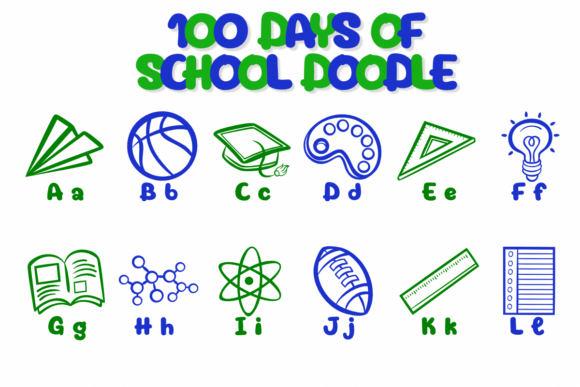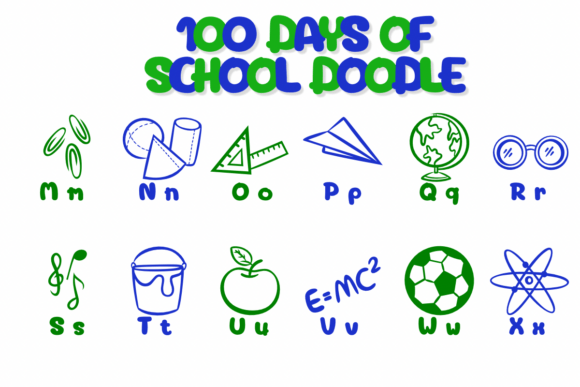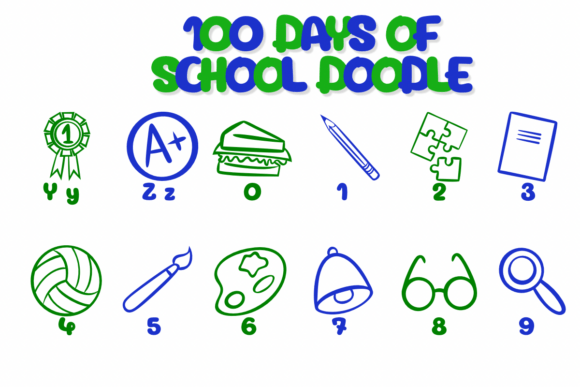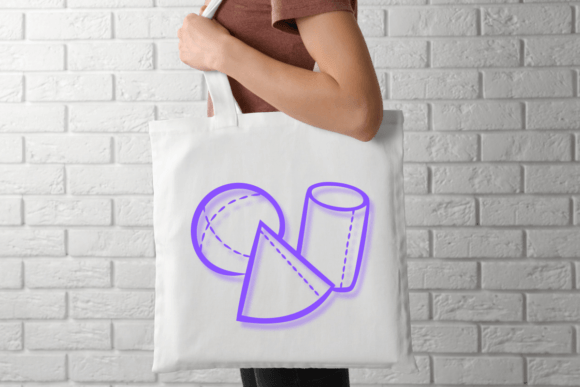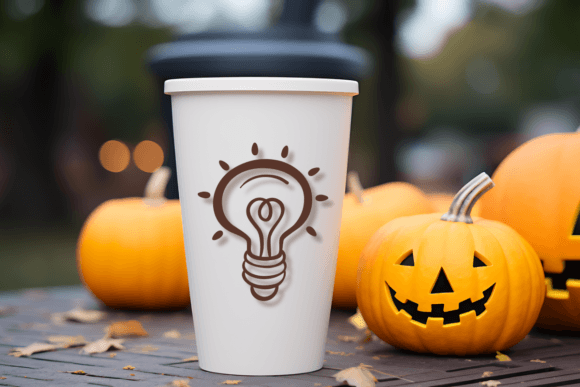
Introducing the 100 Days of School Doodle Font: A Playful and Creative Way to Enhance Your School-Themed Designs
Are you a designer, teacher, or crafter looking for a fun and engaging way to add some personality to your school-themed projects? Look no further than the 100 Days of School Doodle Font! This delightful dingbat font is packed with playful, school-themed icons that are sure to bring charm and creativity to your designs.
What is the 100 Days of School Doodle Font?
The 100 Days of School Doodle Font is a unique and versatile dingbat font that features a wide range of school-themed icons, including books, globes, sports equipment, art supplies, and much more. With its doodle-style graphics, this font is perfect for adding a touch of whimsy and fun to your designs.
What Can I Use the 100 Days of School Doodle Font For?
The possibilities are endless with the 100 Days of School Doodle Font! Here are just a few ideas to get you started:
- Classroom decorations: Use the font to create fun and colorful decorations for your classroom, such as bulletin boards, posters, and charts.
- Educational materials: Add a playful touch to your educational materials, such as worksheets, activity sheets, and handouts.
- DIY projects: Use the font to create fun and personalized DIY projects, such as crafts, gift tags, and party decorations.
- Activity sheets: Create engaging activity sheets, such as word searches, mazes, and coloring pages.
Why Choose the 100 Days of School Doodle Font?
Here are just a few reasons why the 100 Days of School Doodle Font is a great choice for designers, teachers, and crafters:
- Unique and playful: The font features a unique and playful design that is sure to add a touch of personality to your projects.
- Versatile: The font includes a wide range of icons, making it versatile and easy to use for a variety of projects.
- Scalable: The font is scalable, making it perfect for use on a variety of projects, from small crafts to large posters.
Tips and Tricks for Using the 100 Days of School Doodle Font
Here are a few tips and tricks to help you get the most out of the 100 Days of School Doodle Font:
- Experiment with different sizes and colors to add visual interest to your designs.
- Combine the font with other fonts and graphics to create a unique look.
- Use the font to create a cohesive look across multiple projects.
The 100 Days of School Doodle Font is a fun and creative way to add some personality to your school-themed designs. With its playful and versatile icons, this font is perfect for designers, teachers, and crafters who are looking for a unique and engaging way to enhance their projects. So why wait? Download the 100 Days of School Doodle Font today and start adding some charm and creativity to your designs!
Whether you’re creating classroom decorations, educational materials, or DIY projects, the 100 Days of School Doodle Font is sure to be a valuable addition to your design toolkit. So go ahead, get creative, and have fun with this delightful dingbat font!